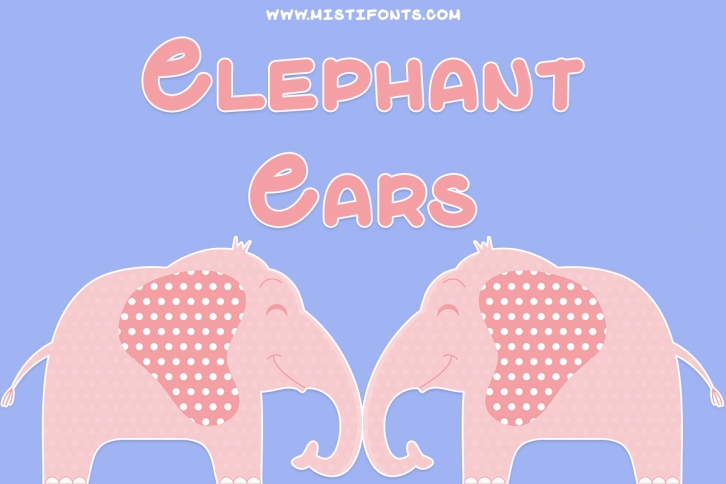
Elephant Ears is a trendy and unique font with an authentic style. It was designed by Misti Fonts and it's a great choice for creative people who need such a font. It was released on May 2, 2017 and the file size is 9.22 MB. Elephant Ears will add an organic vibe to any design idea!